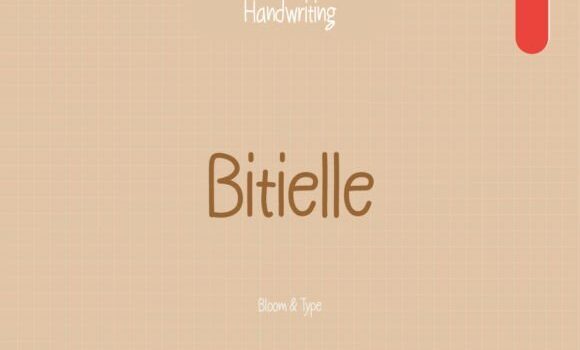
Bitielle Font – Free Download Introduction to Bitielle Font Bitielle is a charming handwritten font that blends simplicity with a warm and friendly feel. 📸 Preview Gallery 6 images 📌 Product Name Bitielle Font 👤 Author Bloom & Type